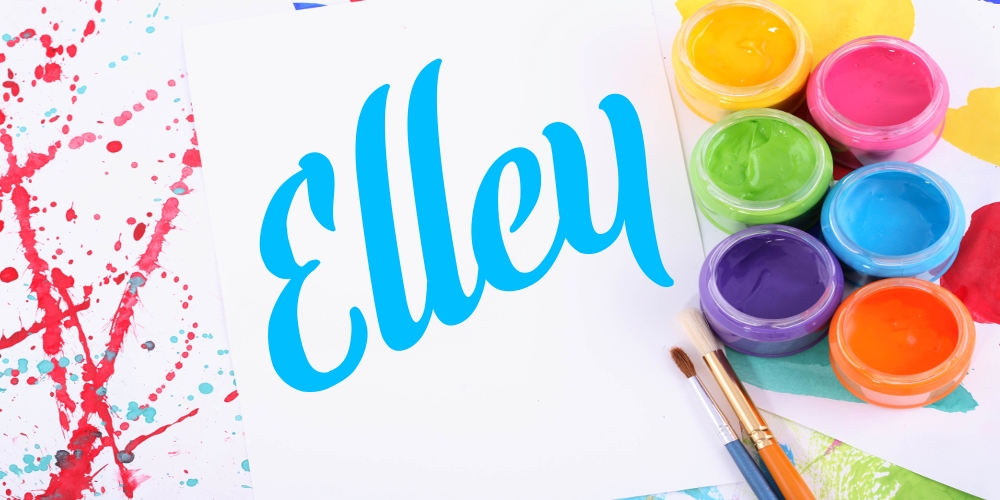
Morgian Brush Font is a Modern Brush Font, suitable for any projects such as: logos, branding projects, homeware designs, product packaging, mugs, quotes, posters, shopping bags, t-shirts, book covers, name card, invitation cards, greeting cards, label, photography, watermark, special events, and all your other lovely projects that need a beautiful script taste.